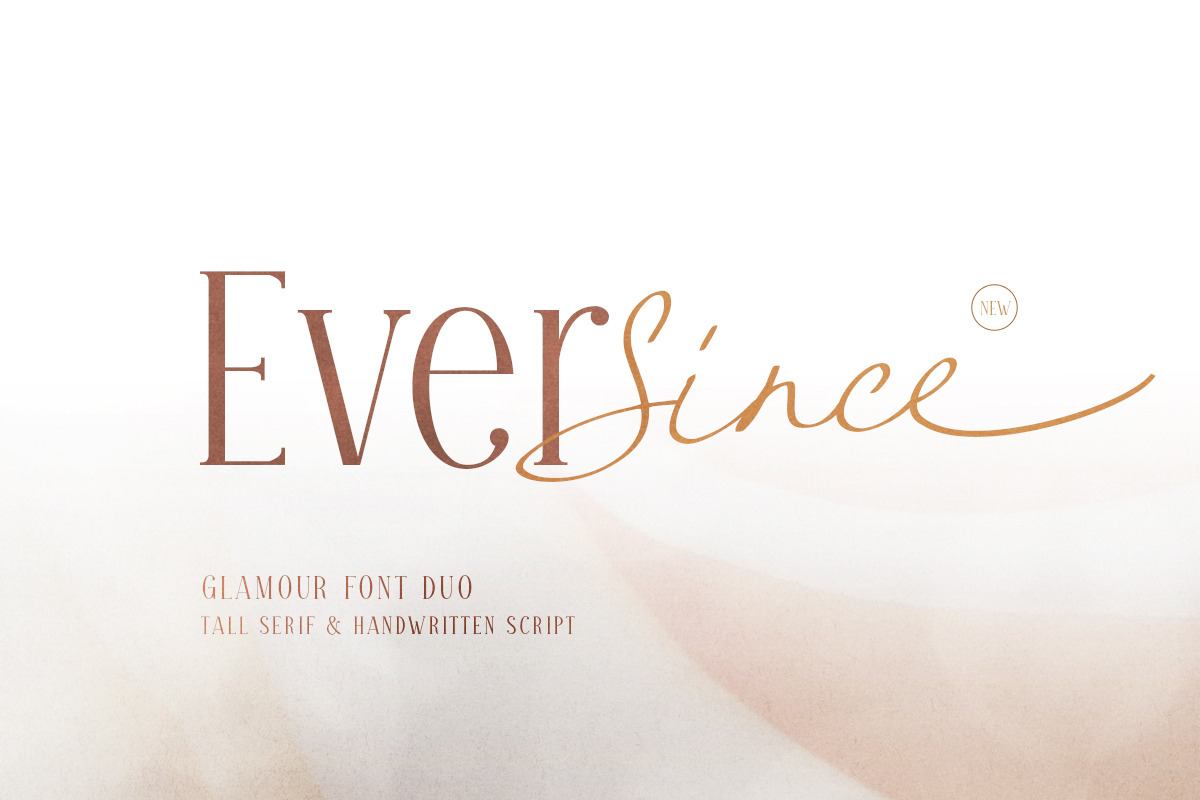
Ever Since - Glamour Font Duo Free Download is a beautifully crafted typeface duo designed to bring a touch of elegance and charm to any project. Featuring a graceful script font paired with a clean and modern serif font, this duo is perfect for a variety of design applications, including wedding invitations, luxury branding, logos, social media graphics, and editorial layouts.
The Ever Since script font offers a handwritten, elegant feel, while the Glamour serif font provides a bold and structured contrast, allowing for a sophisticated, balanced design. Together, they create a versatile and timeless aesthetic.